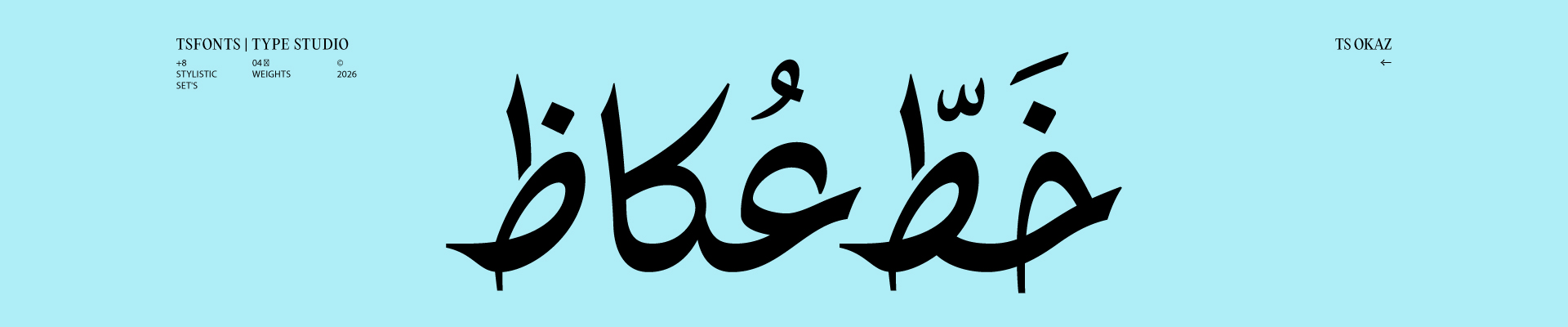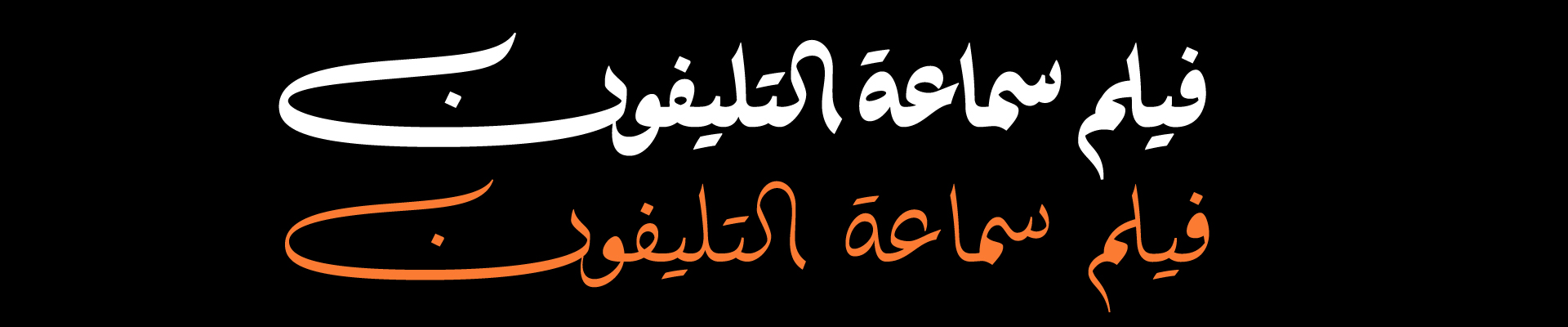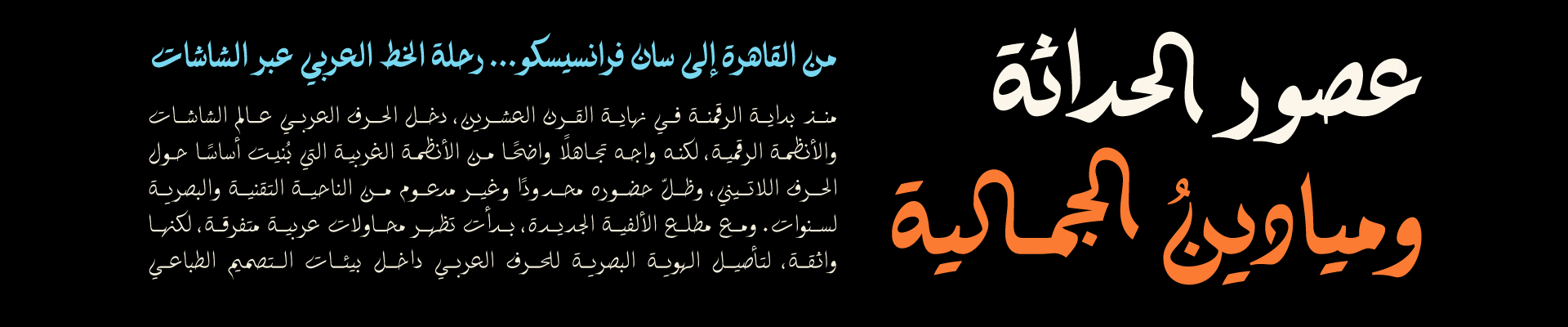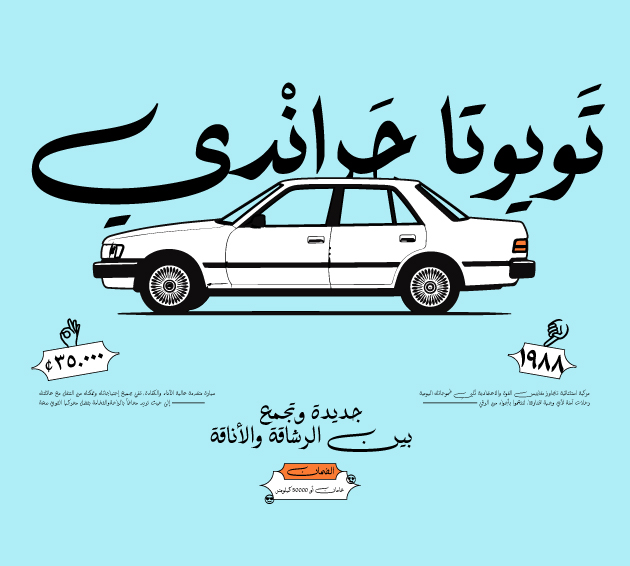
Okaz font is inspired by the hand-lettered styles used in vintage Arabic posters (Afeshat). In those works, calligraphers often combined multiple script styles within a single composition to serve the visual balance. Okaz translates this approach into a font, balancing letter mass and space to work in body text and in bold, eye-catching headlines.
In designing the font, special attention was given to baseline stability, avoiding excessive vertical jumps that can cause collisions between lines. This was one of the main challenges, especially in handling the relationships between different letters. The result is a set of forms drawing on Diwani, Ruq’ah, and Naskh influences, harmonized into a coherent system that maintains both readability and visual rhythm without disrupting the text’s balance.
Okaz is available in four weights and includes a range of stylistic alternates, ligatures, symbols, and emojis.